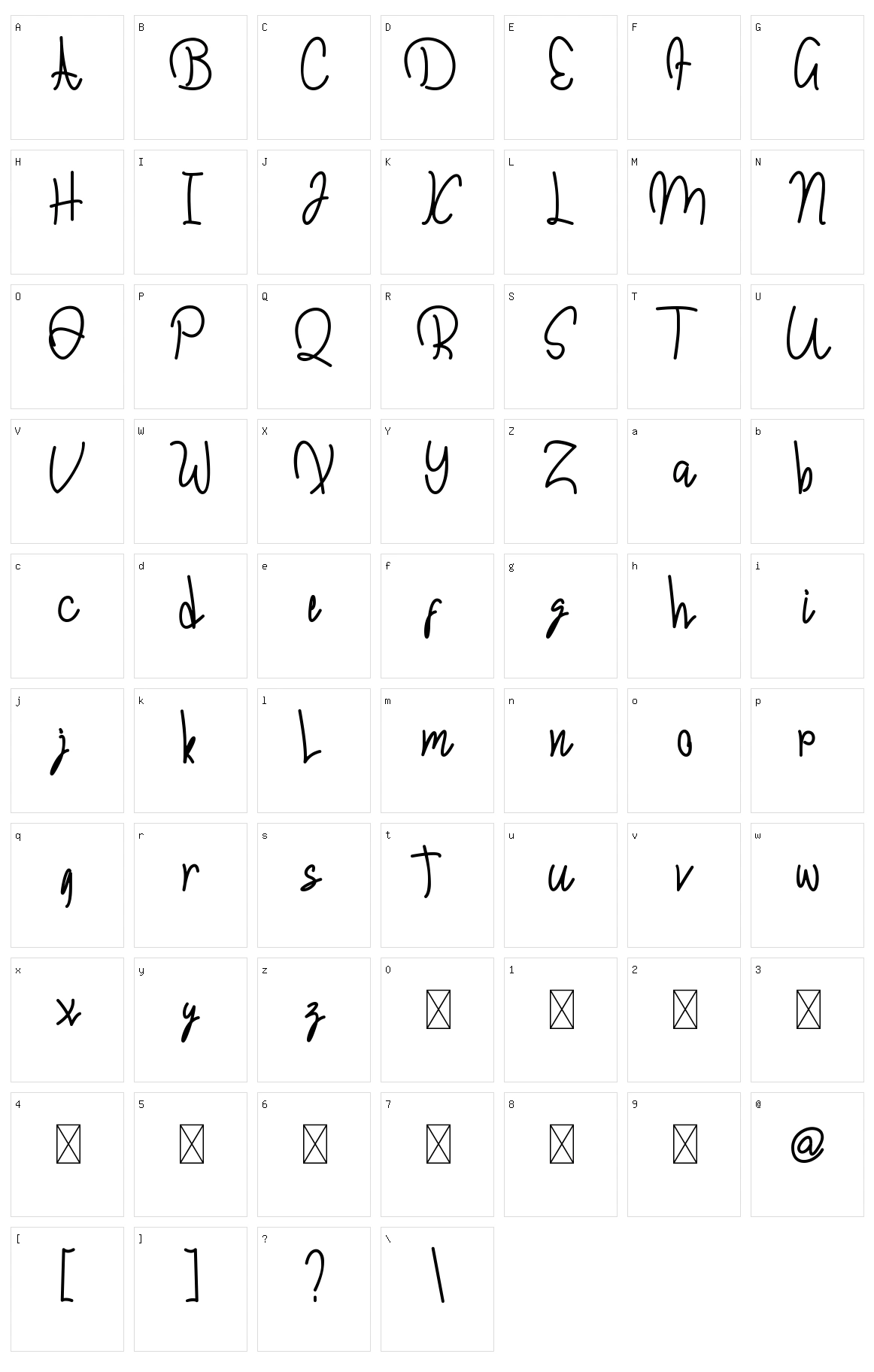
Ralexin is an excellent and elegant signature font for writing.
Ralexin is suitable for social media posts, advertisements, logos & branding, invitations, product design, photography, watermarks, labels, wedding designs, product packaging, any event that requires a handwriting.